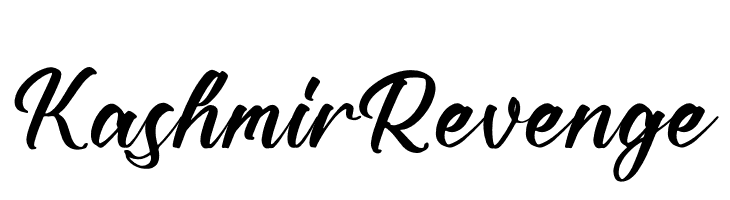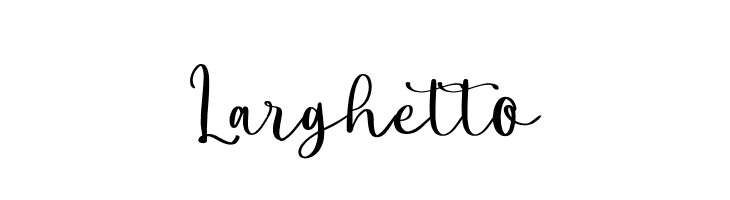
( Fonts by Letterena Studios )
A dynamic and elegant script font with fluid, cursive letterforms.
( Fonts by Balpirick Studio )
A playful, casual handwritten font with smooth, rounded strokes.
( Fonts by Prioritype Co )
A casual, handwritten font with a playful and artistic style.
( Fonts by Eric Nopanen )
A playful, handwritten font with irregular strokes and a casual style.
( Fonts by Stellaris Studio )
A delicate, handwritten font with a whimsical and flowing style.
( Fonts by PiPi Creative )
A playful and elegant script font with a handwritten style.
( Fonts by ABD Studio )
A sophisticated script font with fluid, cursive strokes and elegant curves.
( Fonts by Perspectype Studio )
A casual, playful handwritten font with smooth curves and a friendly style.
( Fonts by UI Creative )
A fluid, cursive script font with elegant, connected strokes.
( Fonts by Letterena Studios )
A dynamic and elegant script font with fluid, cursive strokes.